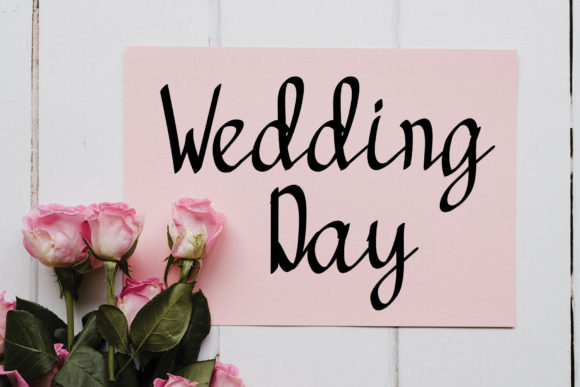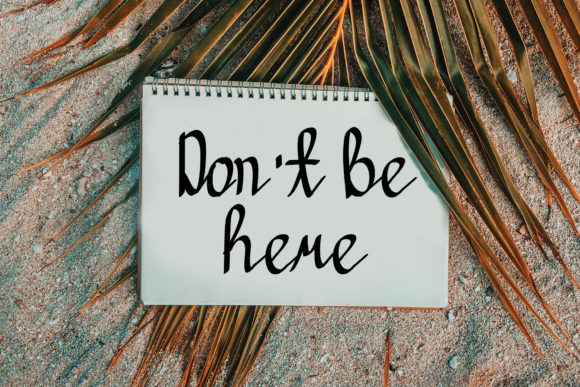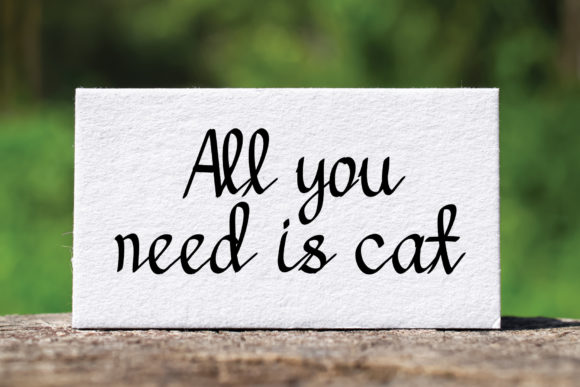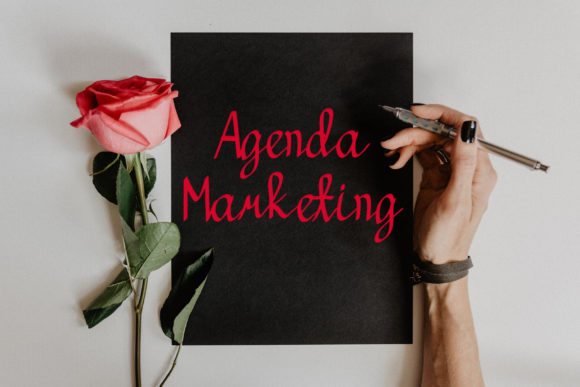
Baby Bunny Font
About Baby Bunny Font
“Baby Bunny” is an adorable and refined script font that exudes sophistication and elegance. Its cute and well-balanced design, combined with stylish alternates and ligatures, makes it the perfect choice for a wide range of design projects.
The charming and playful nature of “Baby Bunny” adds a touch of sweetness and whimsy to any text. Each letter is carefully crafted with attention to detail, creating a visually pleasing and balanced appearance. The font’s stylish alternates and ligatures offer a variety of unique letter combinations, allowing you to customize and enhance the overall look of your designs.
With its versatile and refined design, “Baby Bunny” is suitable for various projects such as branding, logos, invitations, stationery, and more. Its sophisticated and elegant aesthetic can elevate the visual appeal of any design and create a delightful impression.
The font’s stylish alternates and ligatures provide additional creative possibilities. By using these special characters, you can add unique swashes, curls, and flourishes to your typography, enhancing the overall charm and elegance of your designs. The font’s versatility allows it to adapt to different design styles and themes, making it a perfect match for various projects.
Whether you’re creating baby shower invitations, children’s books, or whimsical branding materials, “Baby Bunny” will add a touch of cuteness and sophistication. Its refined script style and stylish alternates make it a versatile choice for projects that require a blend of playfulness, elegance, and creativity.
In summary, “Baby Bunny” is a cute and refined script font that combines sophistication with playful charm. With its stylish alternates and ligatures, it offers a range of customization options to make your designs unique and visually appealing. Whether you’re working on branding, invitations, or other creative projects, “Baby Bunny” will bring a delightful and elegant touch to your typography.